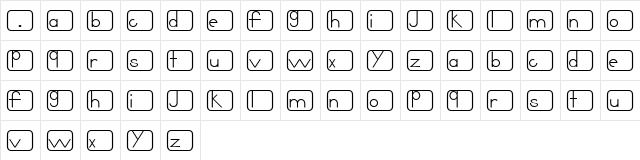
Noir Regular
Design Context for Noir Typeface
Noir offers clean, dependable letterforms without strong stylistic allegiance, making it a practical choice for designers who need flexibility.
Pro Tip: Pair Noir with a font of contrasting weight or personality to build a more expressive typographic hierarchy.